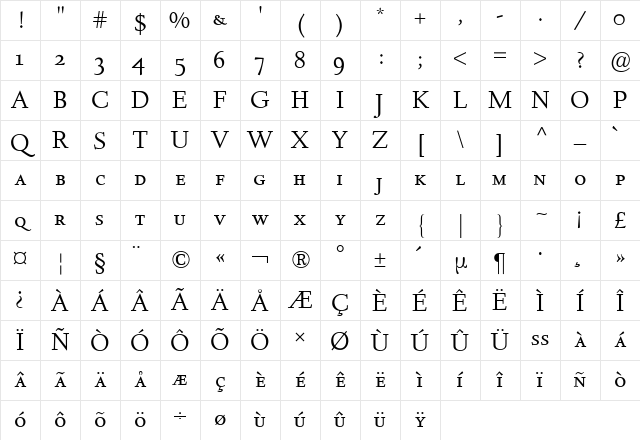
Deepdene Expert BQ Regular
Foundry: COPYRIGHT H. BERTHOLD AG Alle Rechte vorbehalten
Design Context for Deepdene Expert BQ
Deepdene Expert BQ is a composed and adaptable typeface that performs quietly and consistently across a wide range of design contexts.
Who designed the Deepdene Expert BQ Regular font?
This font was published by COPYRIGHT H. BERTHOLD AG Alle Rechte vorbehalten. Check the technical specs section for copyright and designer details.